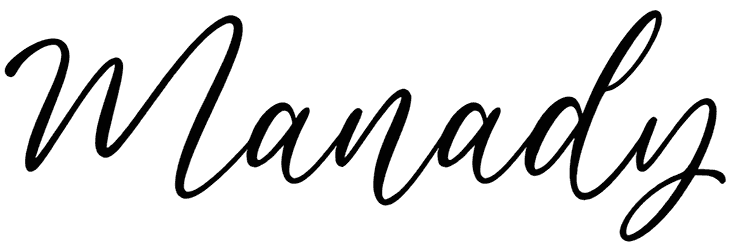
Manady Font
Are you into chic and nice handwritten designs? This unique handwritten font, which is known as Manady, shows smooth and delicate but kinda illegible lettering and conveys a classic vibe. With an almost full cover of characters, this feminine font would work well for any short or long design, from posters to business cards.